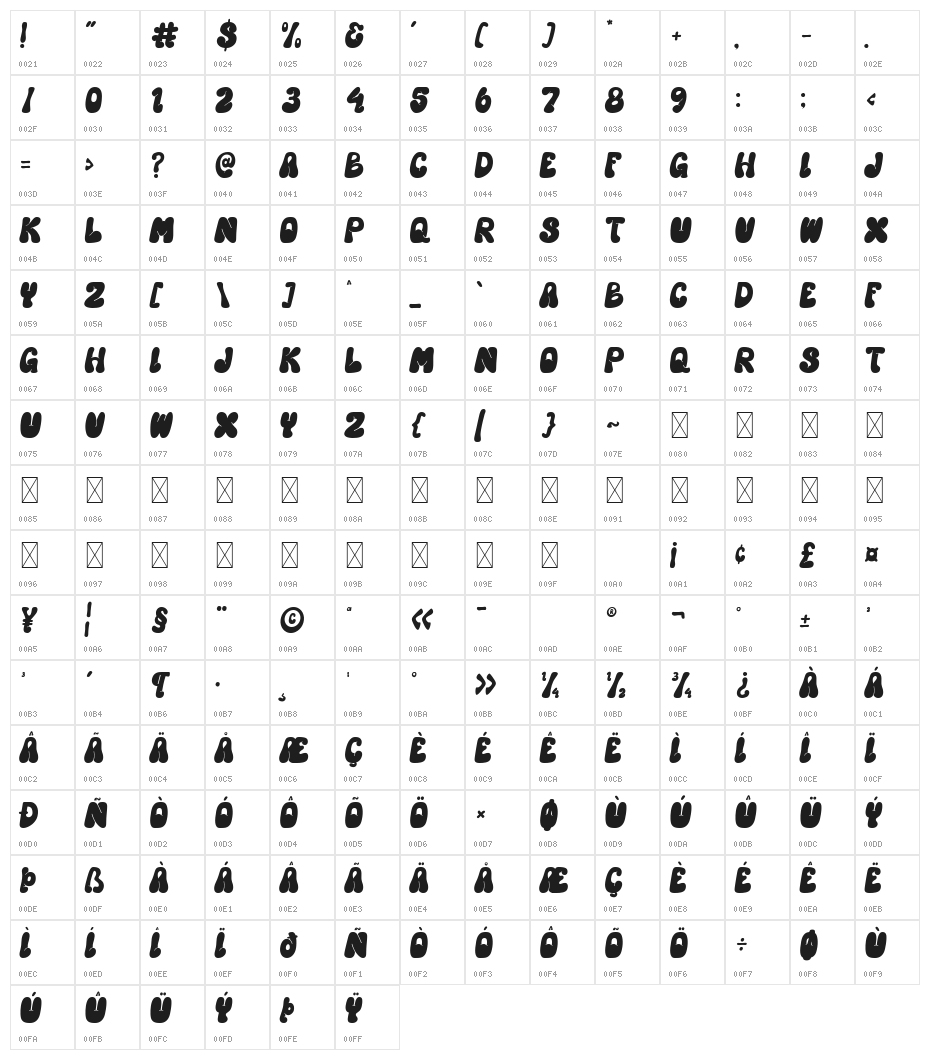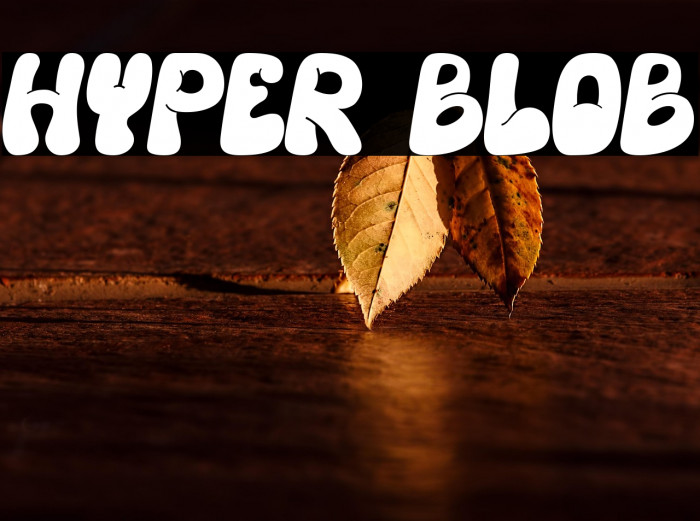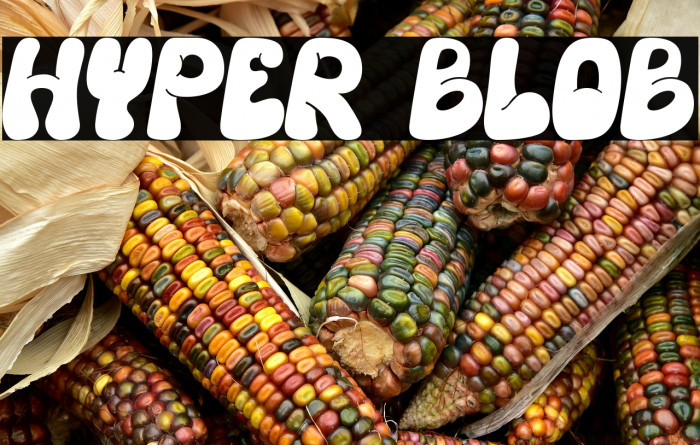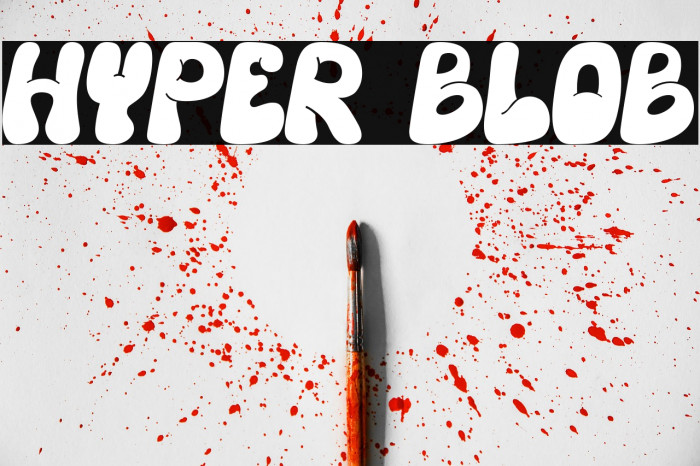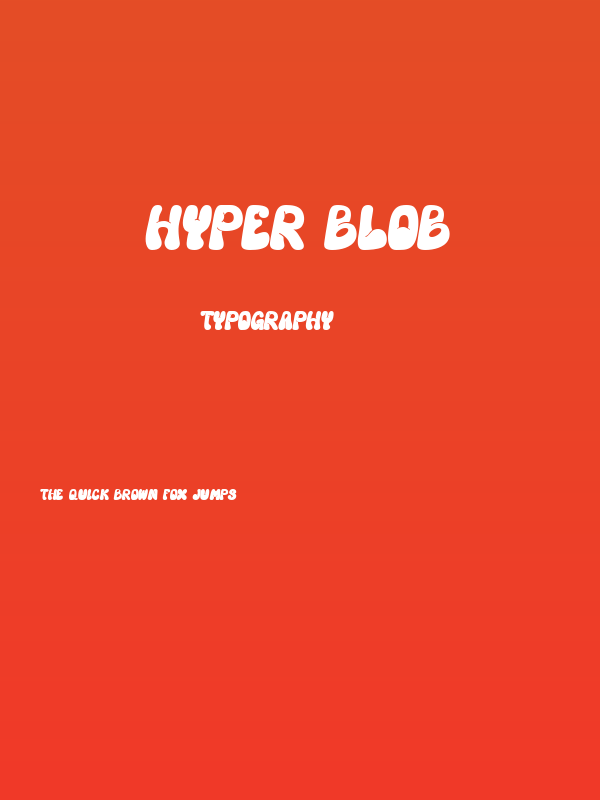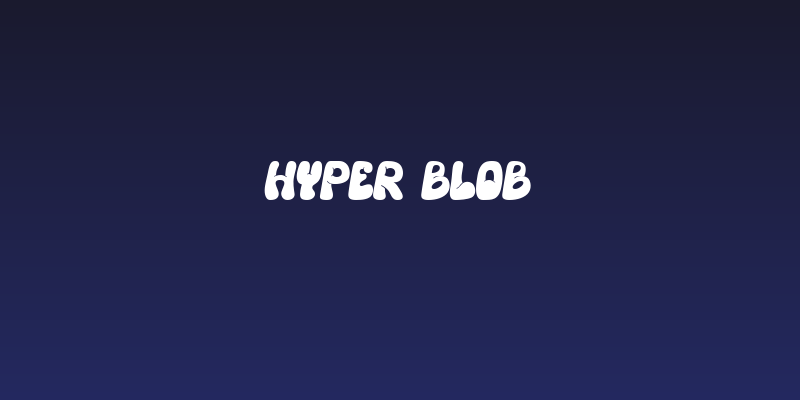
Hyper Blob Font
Hyper Blob Description
This font features a bold, playful design with a bubbly and rounded appearance. The characters are thick and have a soft, inflated look, giving them a friendly and approachable feel. The strokes are consistent in weight, contributing to a uniform and cohesive style. The font's exaggerated curves and rounded edges make it stand out, while maintaining legibility. It is ideal for projects that require a fun and lively aesthetic, such as children's books, playful branding, or creative posters.
| Overall Style | Playful, Fun |
| Proposed Projects | Ideal for children's books, playful branding, creative posters, and any project needing a fun, lively aesthetic. |